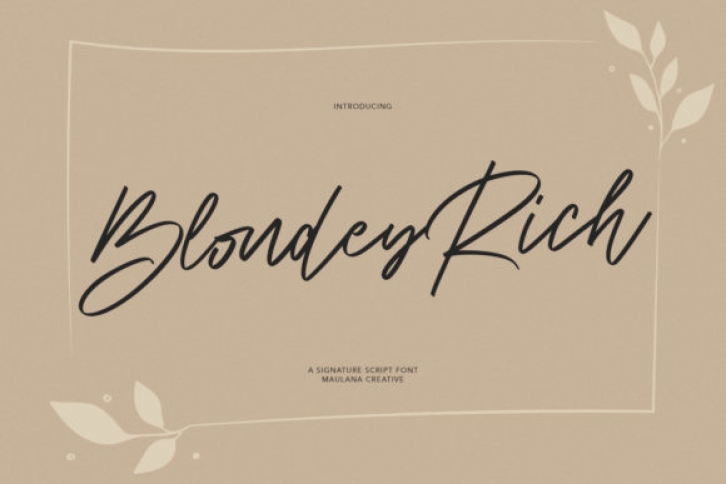
Blondey Rich is a relaxed and distinct script font. It is the best choice for creating eye catching logos, branding and quotes. Every letter has a unique and beautiful touch, which will make your design come alive!